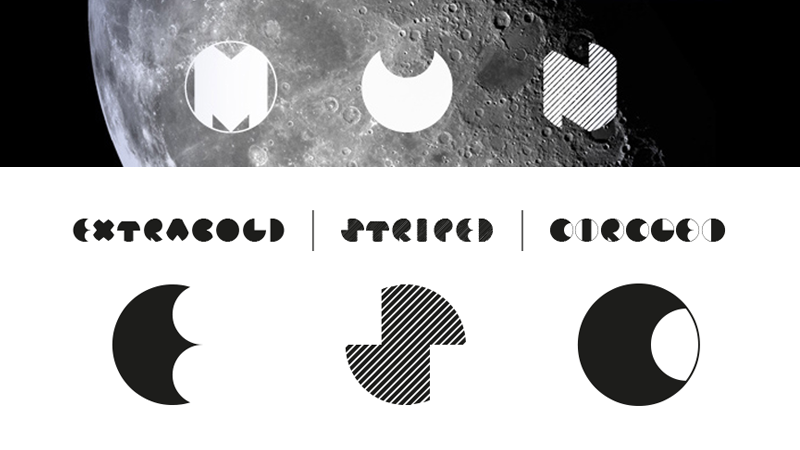
Font name: | Mun |
Author: | Vincenzo Vuono |
Note by Vincenzo Vuono | |
Mun is a new, free display font. I designed all glyphs giving them a mysterious feeling. The typeface works well for headings and patterns. If you like it, please take a minute and appreciate it on behance. Thank you! http://www.behance.net/gallery/Mun-typeface-Free-experimental-font/3574587 © Vincenzo Vuono www.vincenzovuono.com! |